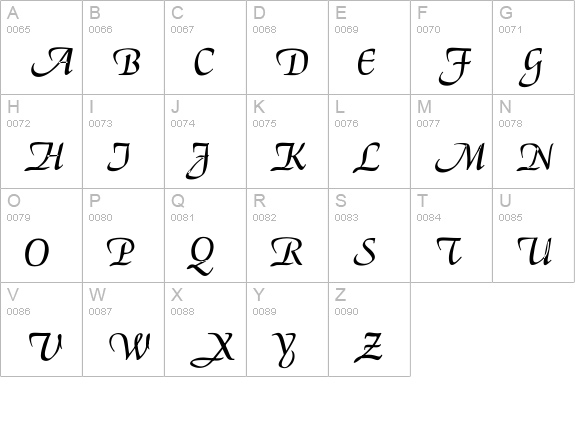
PCLegarnder Font Details
Introducing PCLegarnder, a captivating font that effortlessly combines elegance with a touch of modernity. This versatile typeface is perfect for any creative project, whether it be designing eye-catching logos, crafting stunning invitations, or adding a unique flair to your website. PCLegarnder is characterized by its beautifully crafted letterforms, which boast a harmonious balance between curves and straight lines. The result is a font that exudes sophistication and professionalism, while maintaining a contemporary vibe that is sure to capture attention. What sets PCLegarnder apart is not only its visually pleasing aesthetic, but also its accessibility. This font is freely available to download at FontsMarket.com, allowing designers and typographers alike to easily incorporate it into their projects without any limitations. Whether you're a seasoned professional or just starting out, PCLegarnder offers a wealth of creative possibilities at your fingertips. With a wide range of weights and styles to choose from, PCLegarnder provides the flexibility to suit any design concept. Whether you prefer a bold and assertive look or a more subtle and refined feel, this font has you covered. Its versatility ensures that it can seamlessly adapt to a variety of design themes, from elegant and formal to playful and whimsical. In addition to its stunning appearance and accessibility, PCLegarnder also boasts exceptional legibility. Each letter is meticulously crafted to ensure clarity and ease of reading, even at smaller sizes. This makes it an ideal choice for everything from headlines and titles to body text, ensuring that your message is delivered with utmost clarity and impact. Embrace the charm and versatility of PCLegarnder, a font that effortlessly combines elegance with a modern twist. Download it freely at FontsMarket.com and unleash your creativity with this captivating typeface. Whether you're designing for print or web, PCLegarnder is the perfect companion to elevate your projects to new heights of visual excellence.